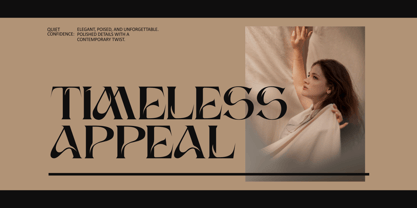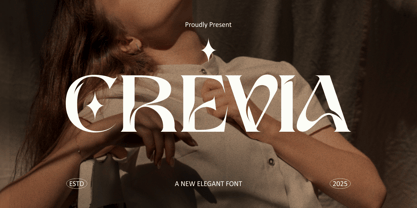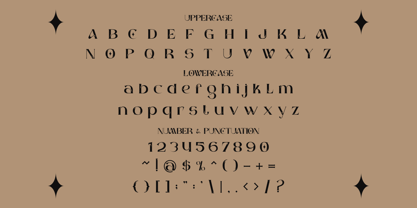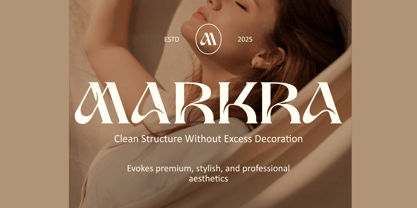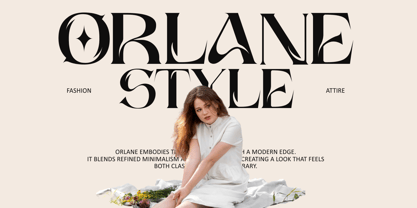
Crevia
by Putracetol
The Crevia Font Family was designed by Putra Novembria Candra Kusuma and published by Putracetol. Crevia contains 2 styles and family package options. More about this family
Crevia Elegant Font is a graceful serif typeface crafted for designers who appreciate beauty in precision and form. The letters feature high contrast between thick and thin strokes, giving the font a luxurious and polished appearance. Its tall proportions and refined serifs add a modern twist to classic typography, while the subtle flared terminals and fluid curves bring a touch of artistry and femininity. Every letter in Crevia Elegant Font is shaped with attention to balance and rhythm, resulting in a typeface that feels sophisticated yet approachable. The clean geometry and flowing structure make it versatile for both contemporary and timeless designs. Perfect for logo design, branding, editorial layouts, fashion magazines, invitations, and packaging, this font embodies style and confidence. It’s also ideal for posters, titles, and social media graphics where elegance and impact are essential. Crevia Elegant Font adds a premium touch to any visual identity, capturing the essence of refinement and poise. Whether used for luxury branding or modern creative projects, it effortlessly elevates every composition with its elegant presence and stylish personality.